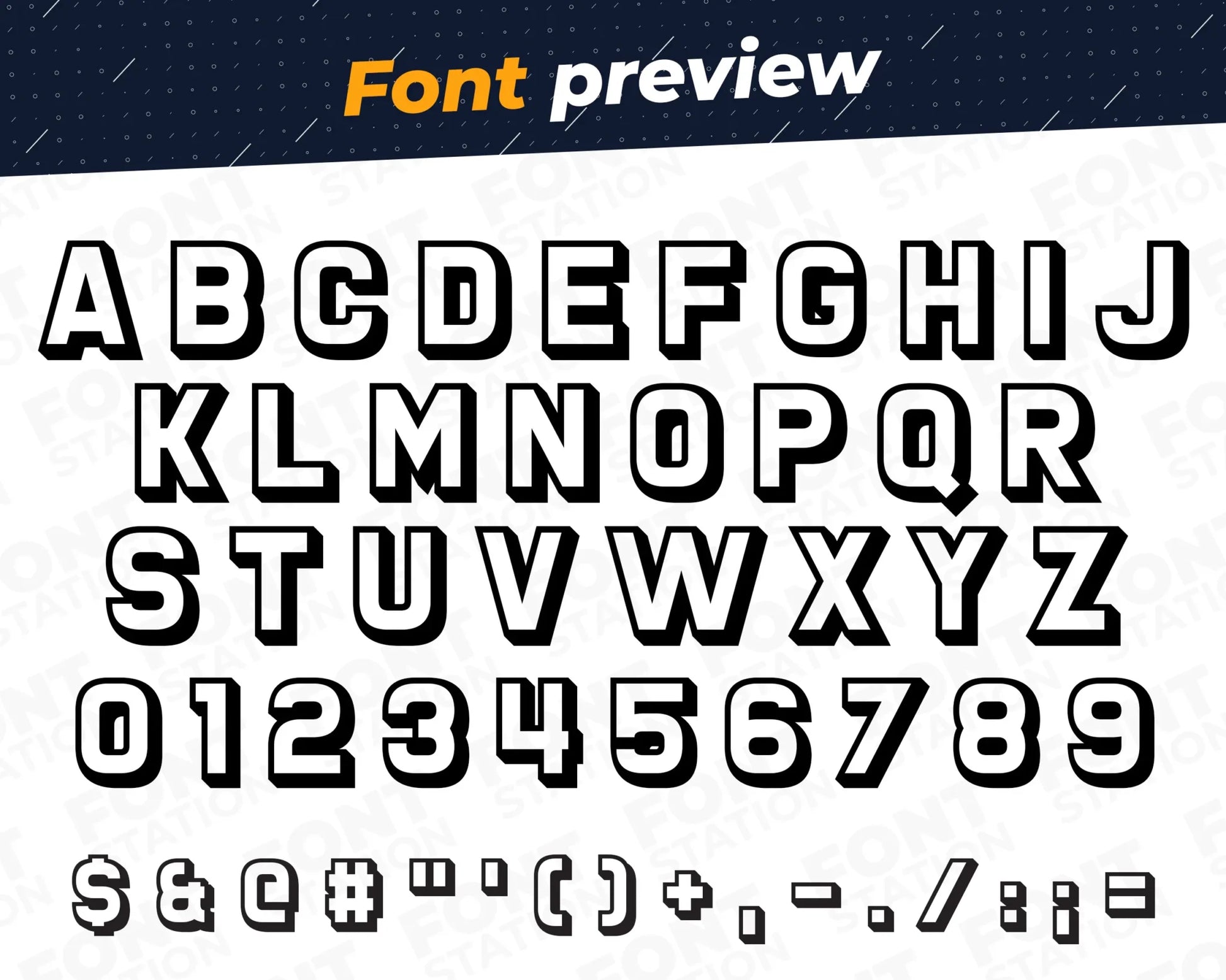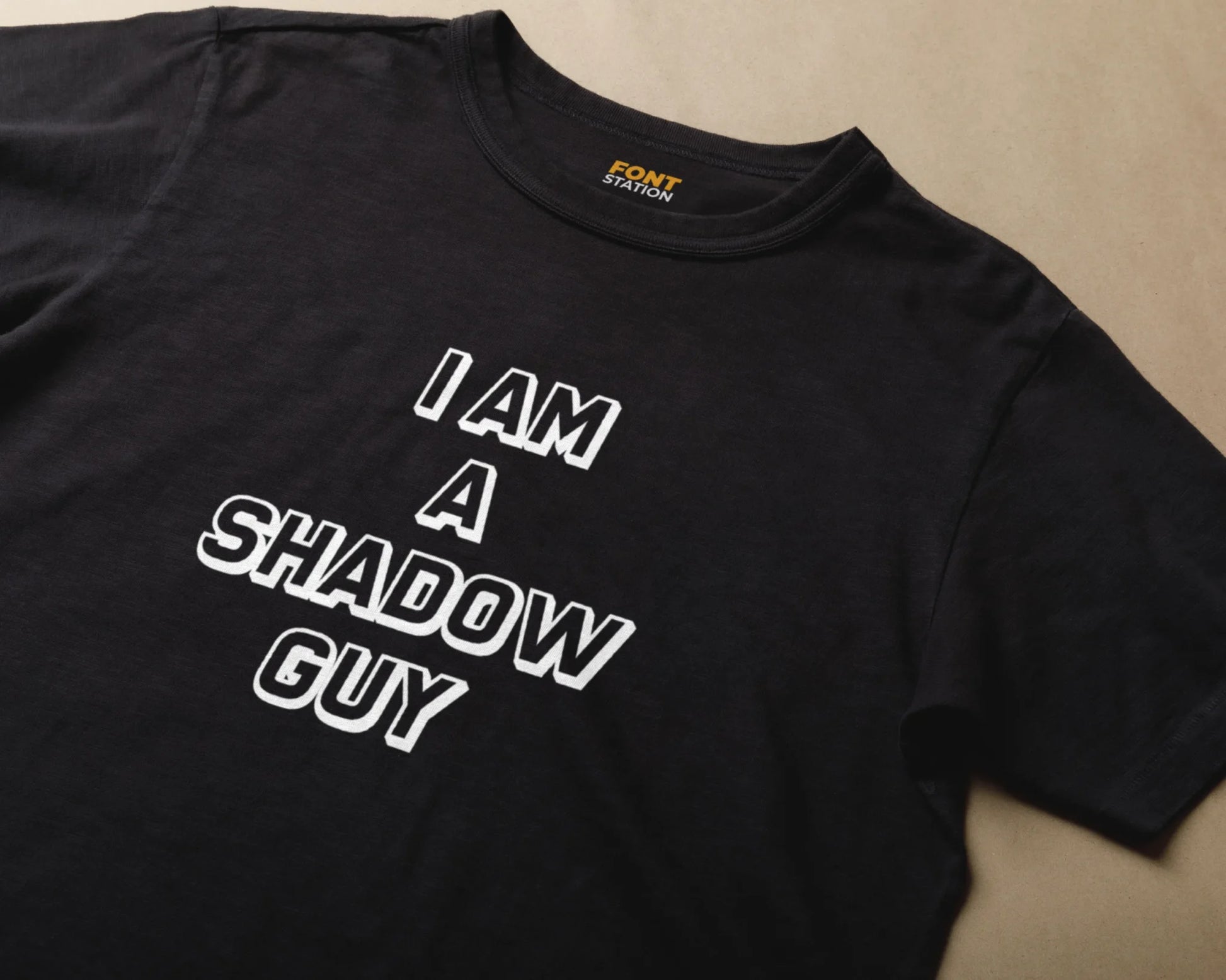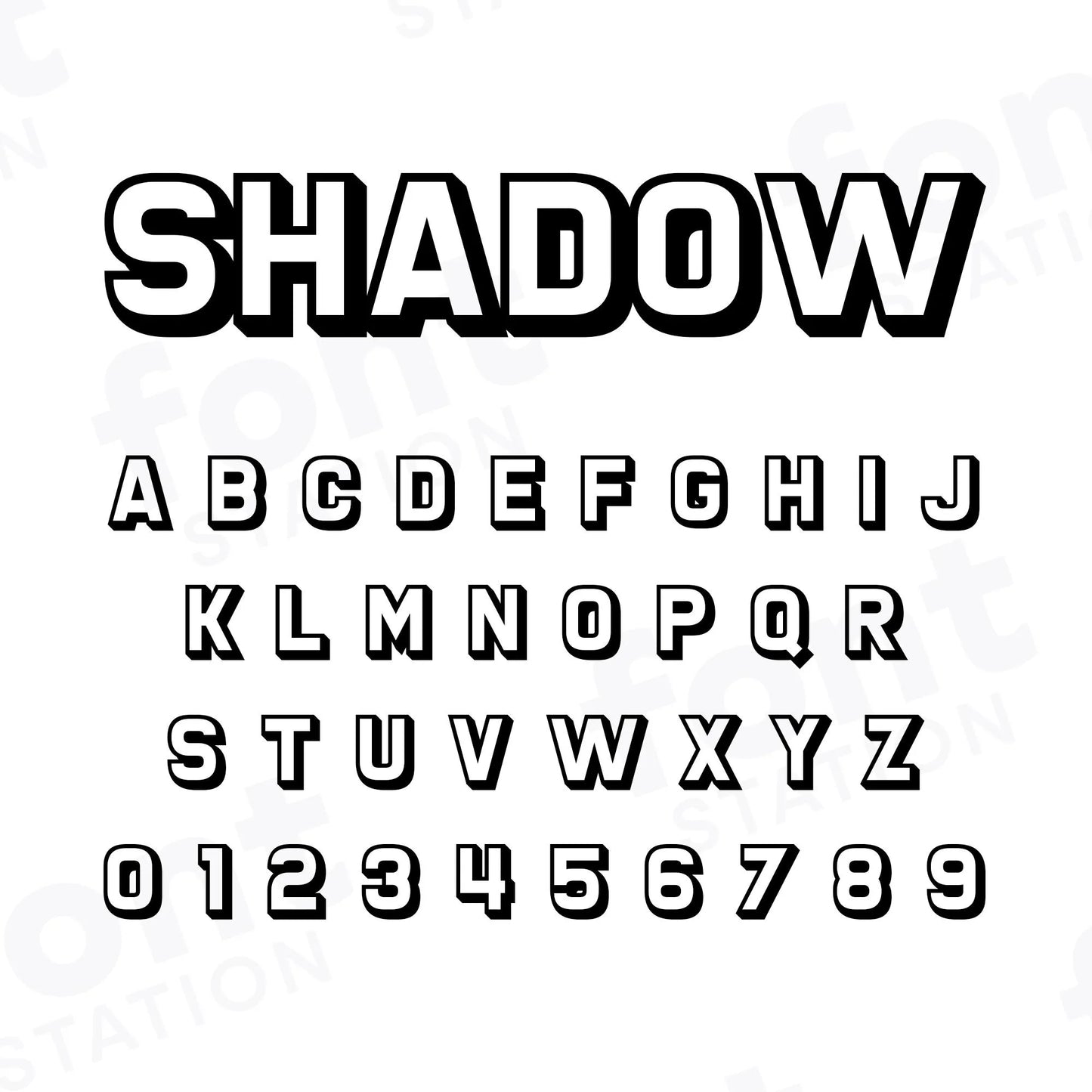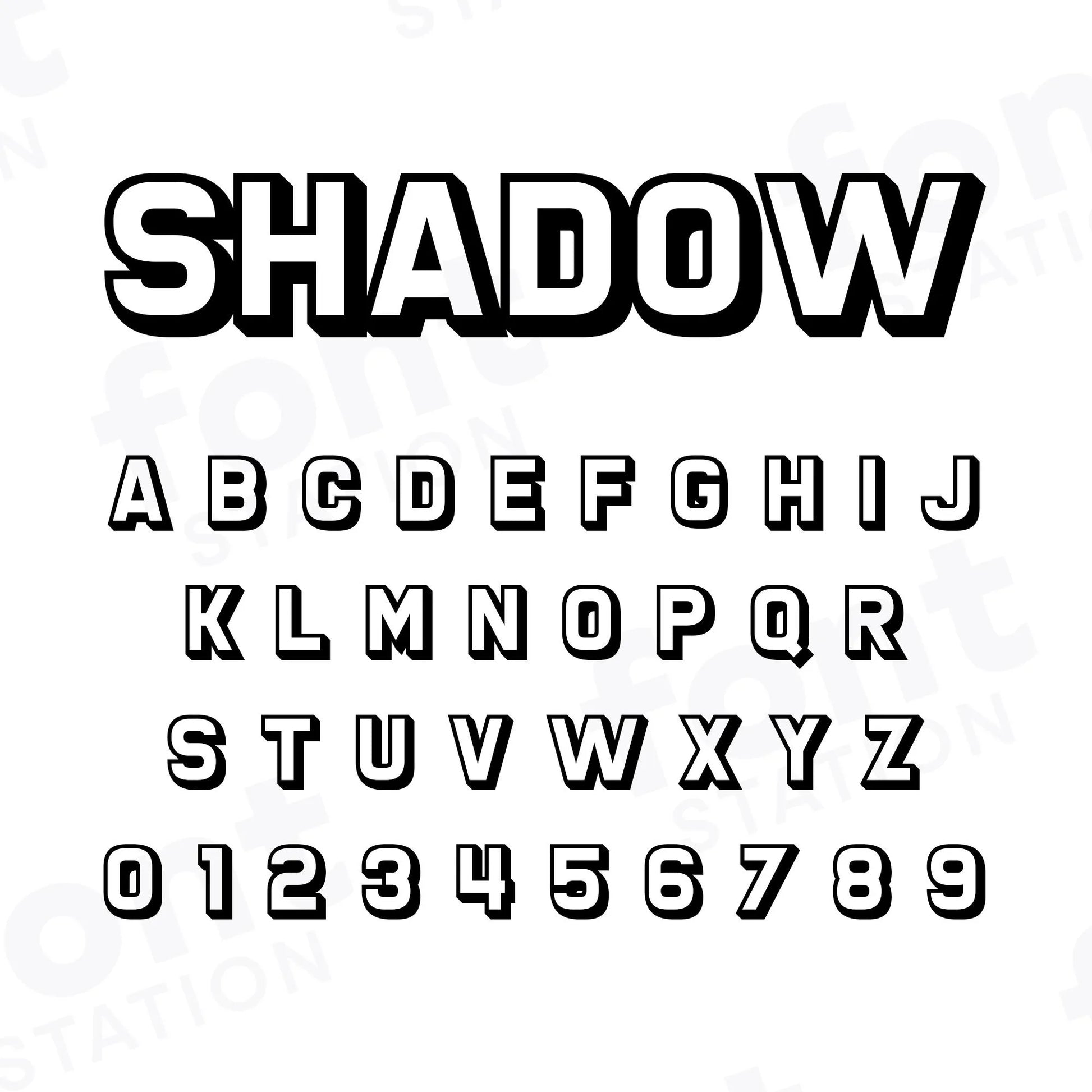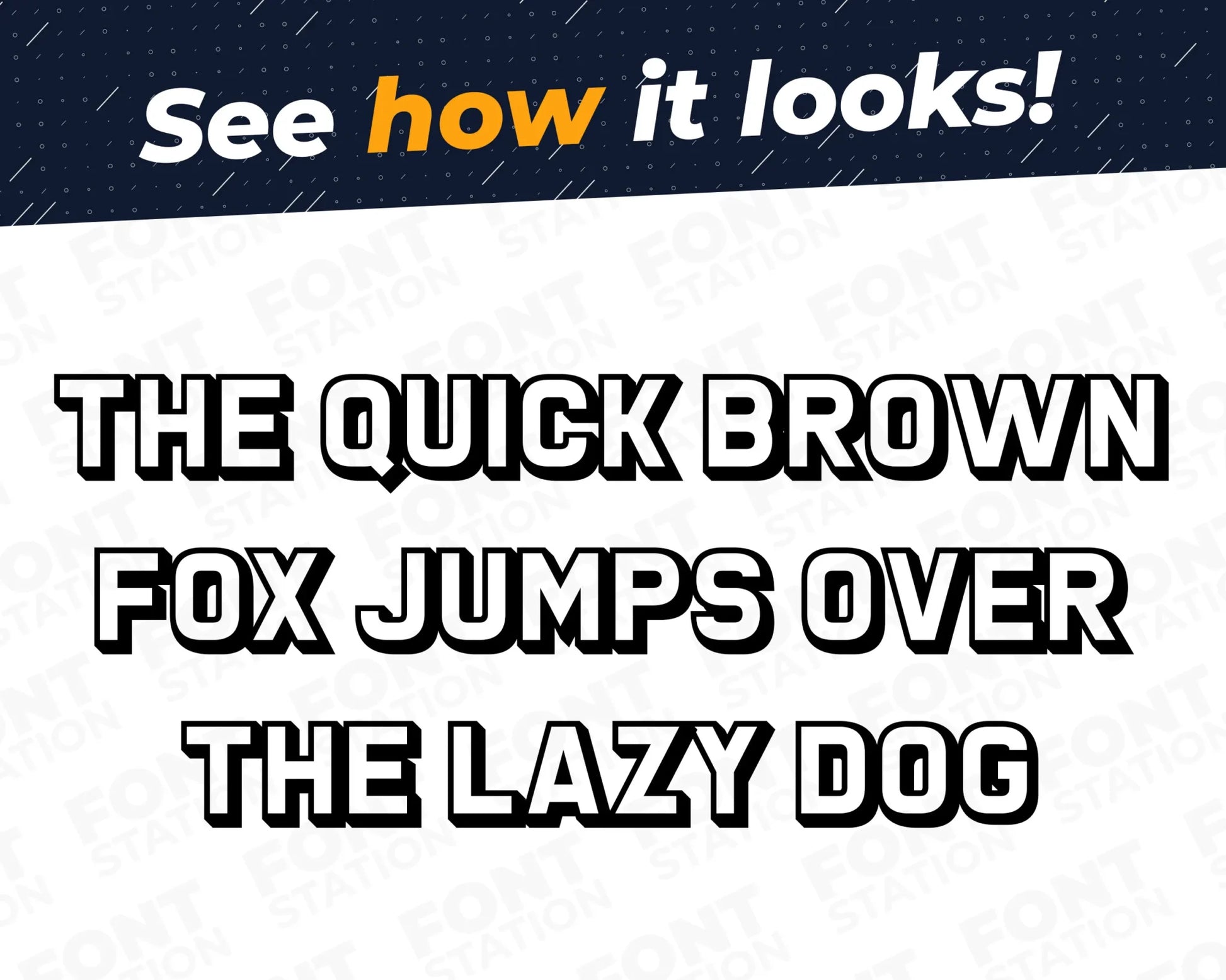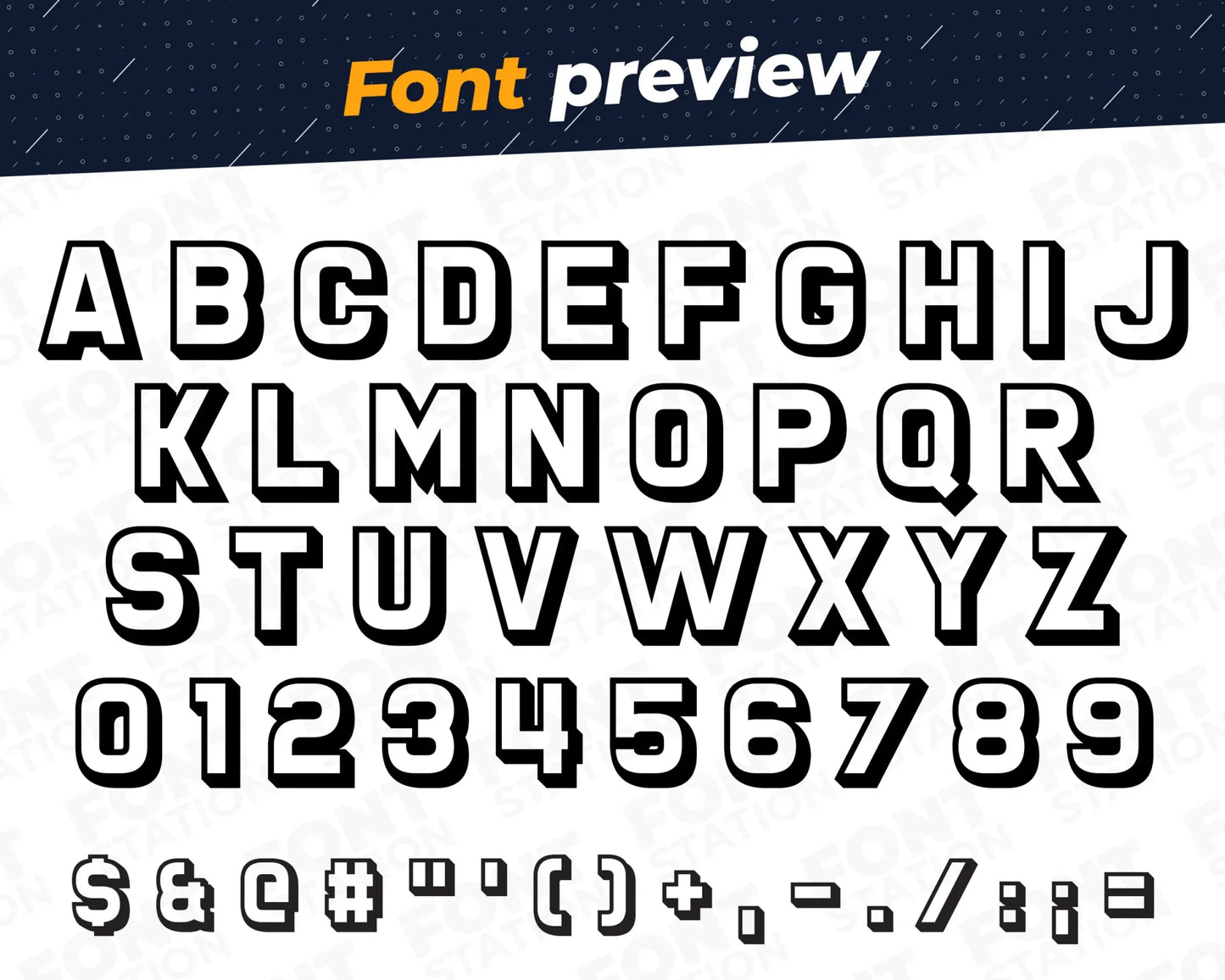
Shadow Font
Our Shadow font, inspired by the Retro font, is ideal for your creations! This font is provided in multiple formats, ensuring compatibility with a wide range of software such as Cricut, Canva, Microsoft Word, Silhouette and more.
Our Shadow typeface, inspired from Retro font
Grab your computer, tablet or other device and start creating right now with our Shadow font letters! Our Shadow typography is inspired from Retro style font, making it ideal for various digital creations (logo, word...), sublimation, cake toppers, stickers, event decorations, and more.